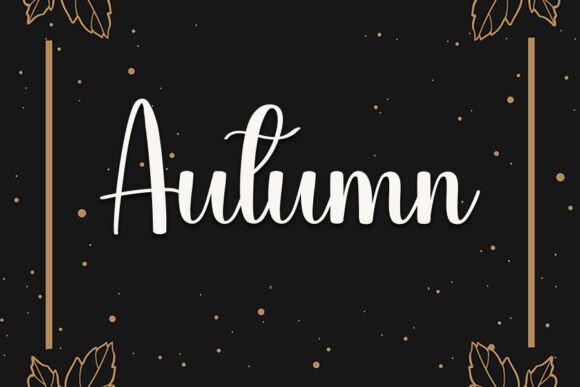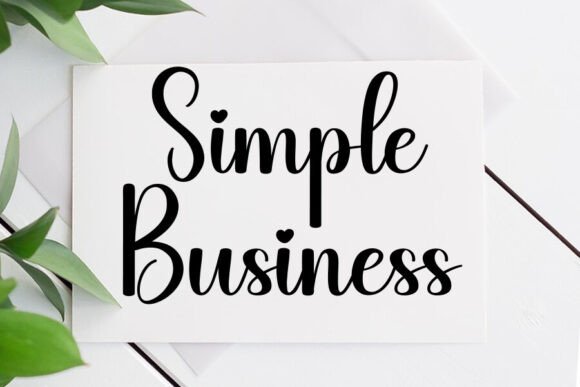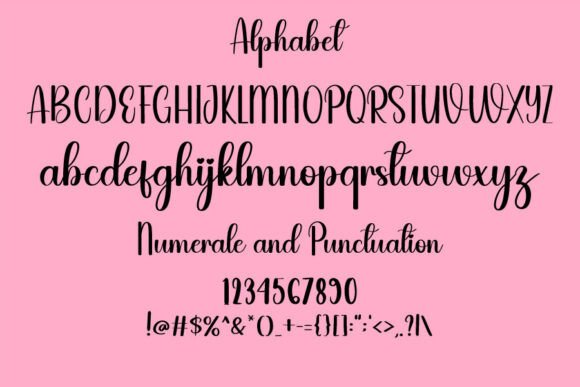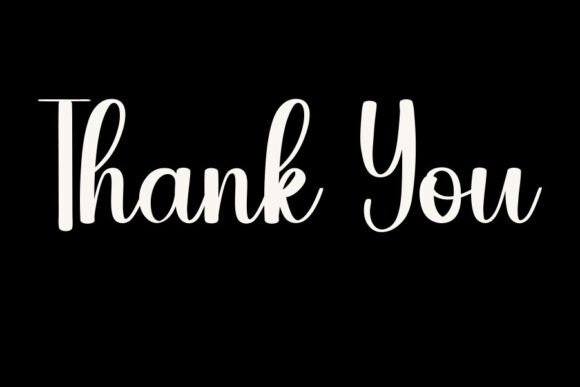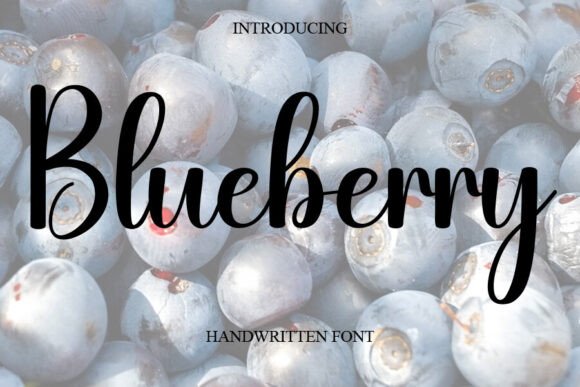
Introducing Blueberry Font: A Timeless Handwritten Delight
Are you a designer or crafter looking for a font that can add a touch of elegance and sophistication to your creative projects? Look no further than Blueberry Font, a lovely and timeless handwritten font that’s perfect for creating eye-catching logos, branding, and quotes.
The Beauty of Blueberry Font
Blueberry Font is a unique and beautiful handwritten font that is sure to make your design come alive. Every letter has a distinctive and artistic touch, which sets it apart from other fonts. The font’s elegant and flowing lines make it perfect for creating visually appealing designs that capture the attention of your audience.
When it comes to creating logos and branding, the font you choose can make all the difference. Blueberry Font is an excellent choice for several reasons. Firstly, its unique and beautiful touch adds a level of sophistication and elegance to your design. Secondly, the font is highly legible, making it easy for your audience to read and understand your message. Finally, Blueberry Font is versatile and can be used in a variety of design contexts, from business cards to billboards.
Adding a Personal Touch to Your Quotes
Blueberry Font is also perfect for creating quotes that inspire and motivate. The font’s elegant and flowing lines add a personal touch to your quotes, making them more relatable and engaging. Whether you’re creating a social media post or a print design, Blueberry Font is sure to make your quotes stand out from the crowd.
Why Designers and Crafters Love Blueberry Font
Tips for Using Blueberry Font
Here are some tips for using Blueberry Font in your designs:
• Use Blueberry Font for headlines and titles to add a touch of elegance and sophistication.
• Experiment with different colors and textures to add depth and interest to your design.
• Pair Blueberry Font with other fonts to create a unique and visually appealing design.
• Use Blueberry Font for body text to add a personal touch to your content.
• What type of font is Blueberry Font? Blueberry Font is a handwritten font.
• Is Blueberry Font easy to read? Yes, Blueberry Font is highly legible and easy to read.